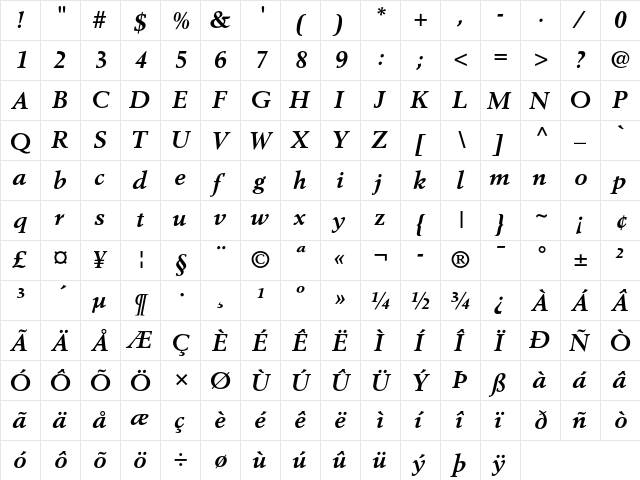
Berling Bold Italic
Design Context for Berling Typeface
Berling offers clean, dependable letterforms without strong stylistic allegiance, making it a practical choice for designers who need flexibility. Its italic angle brings a sense of urgency and motion to the letterforms. Its bold stroke weight gives it real presence on the page.
Pro Tip: Try Berling for annotation and caption copy alongside an upright companion — the contrast in angle creates a dynamic but ordered typographic system.